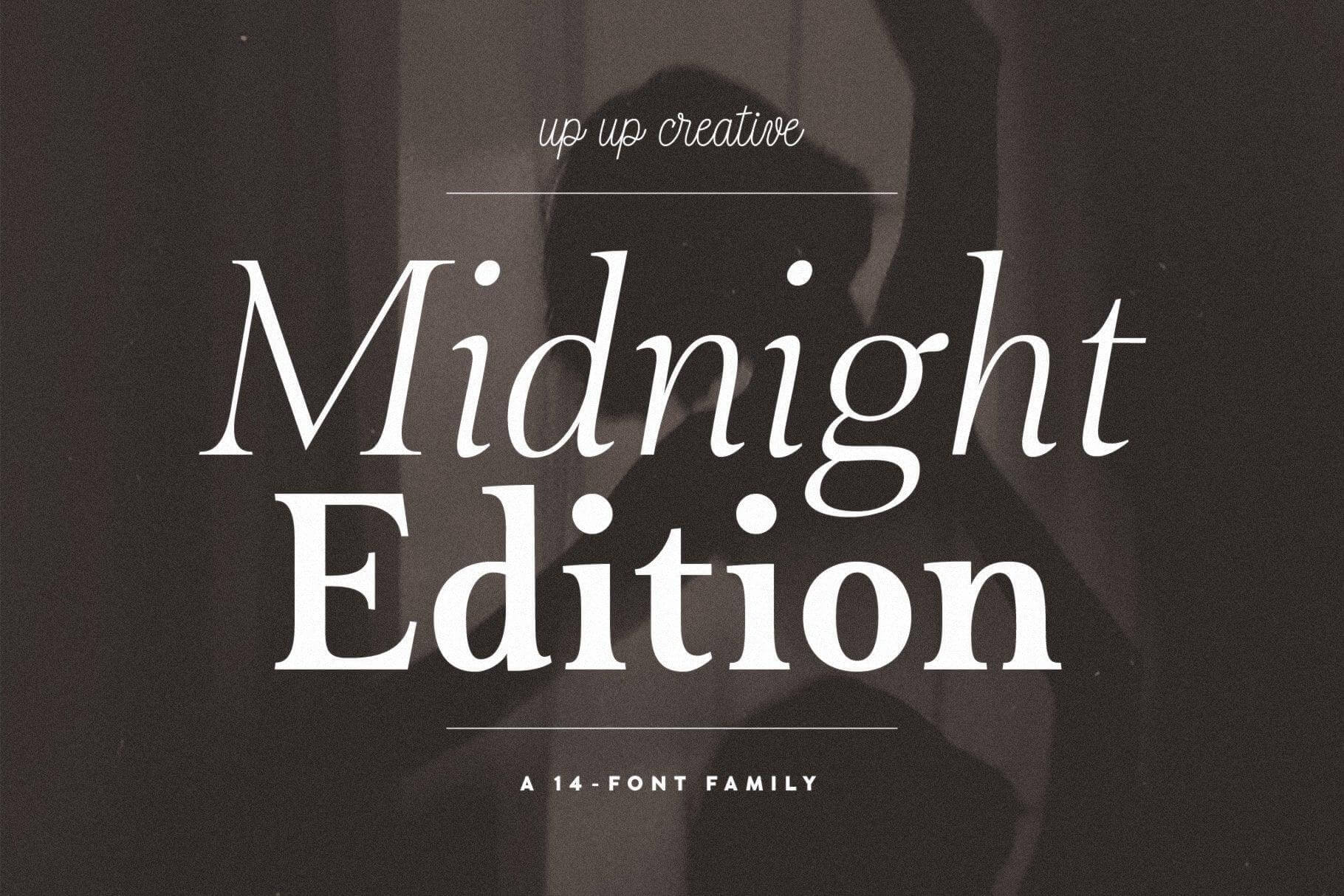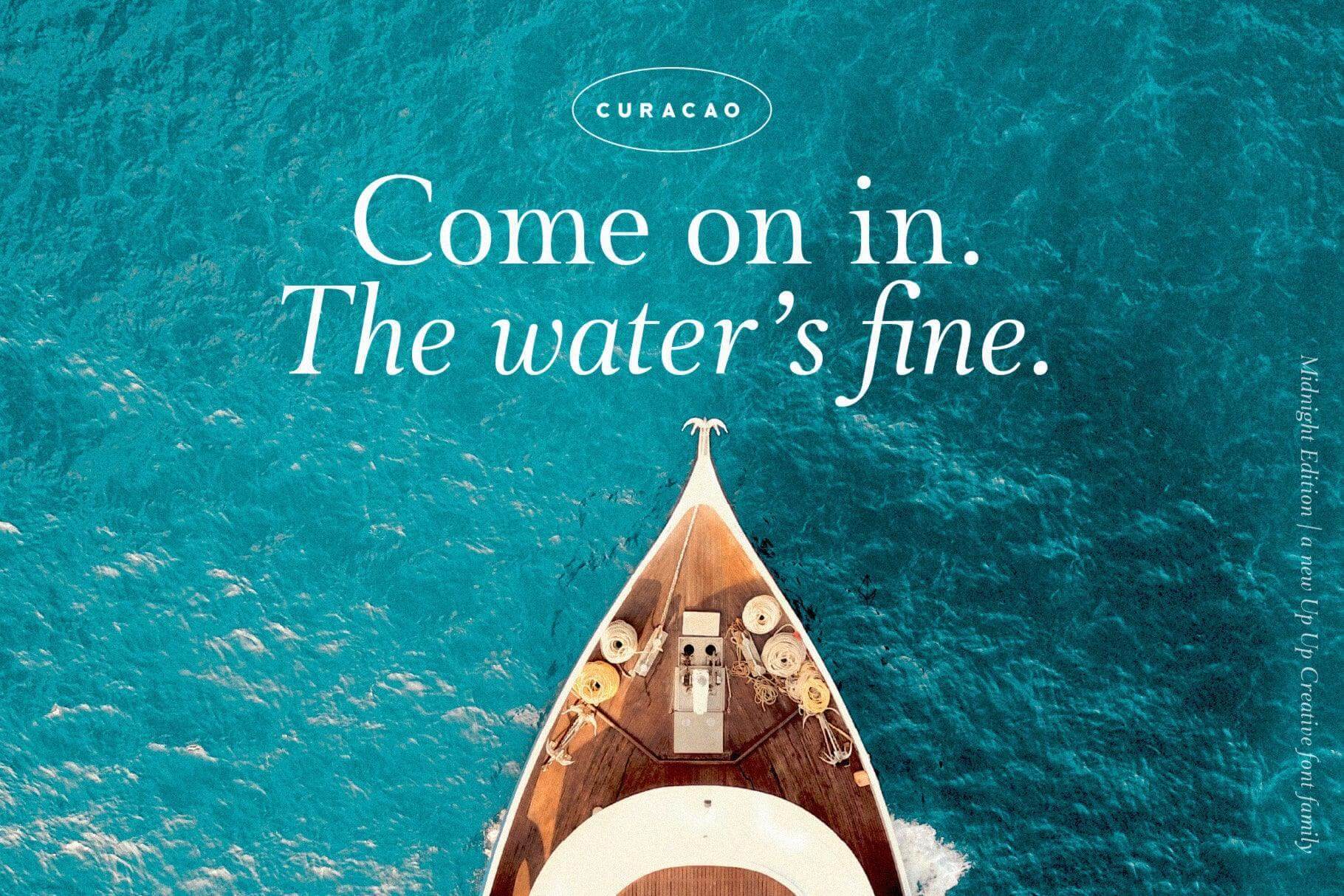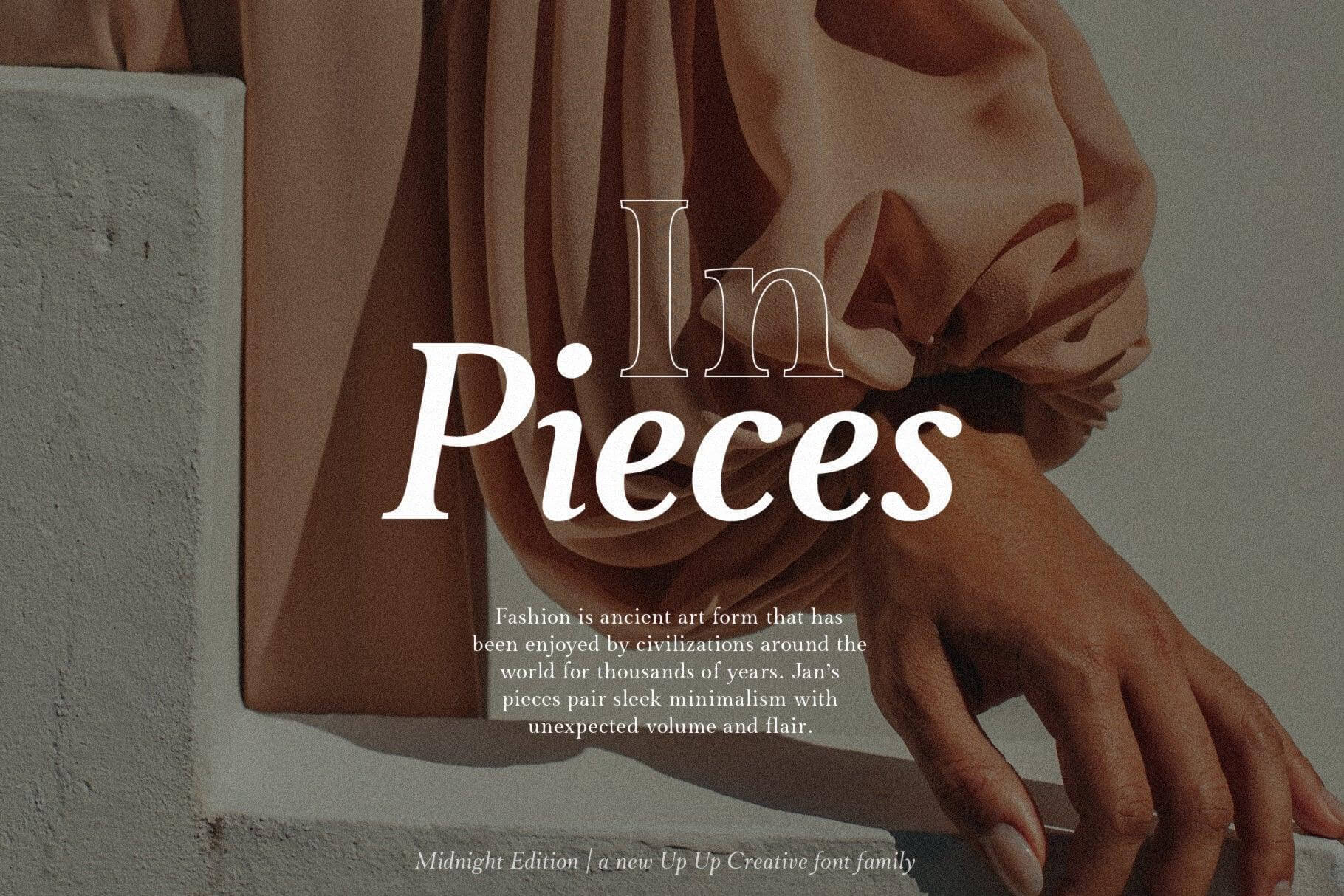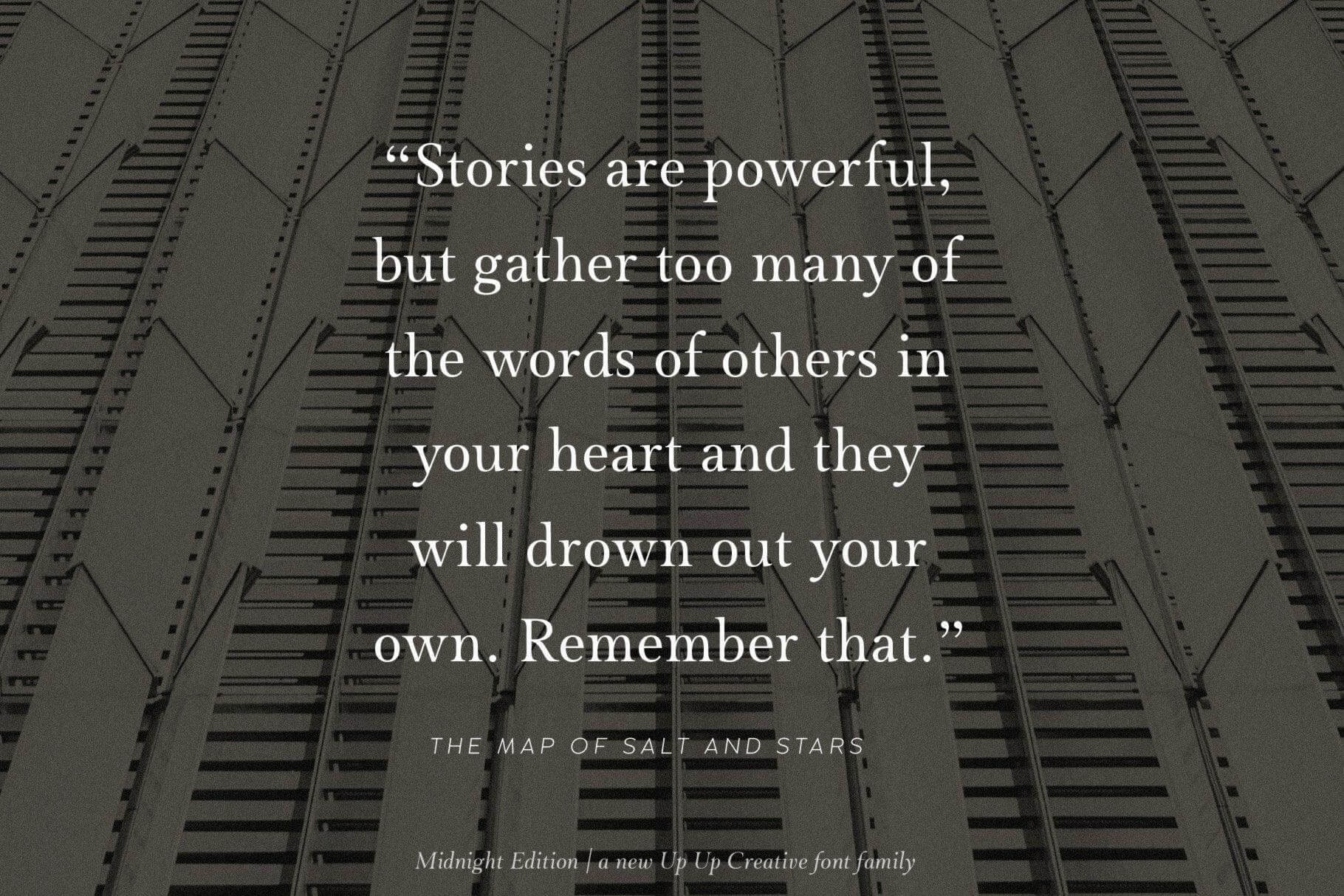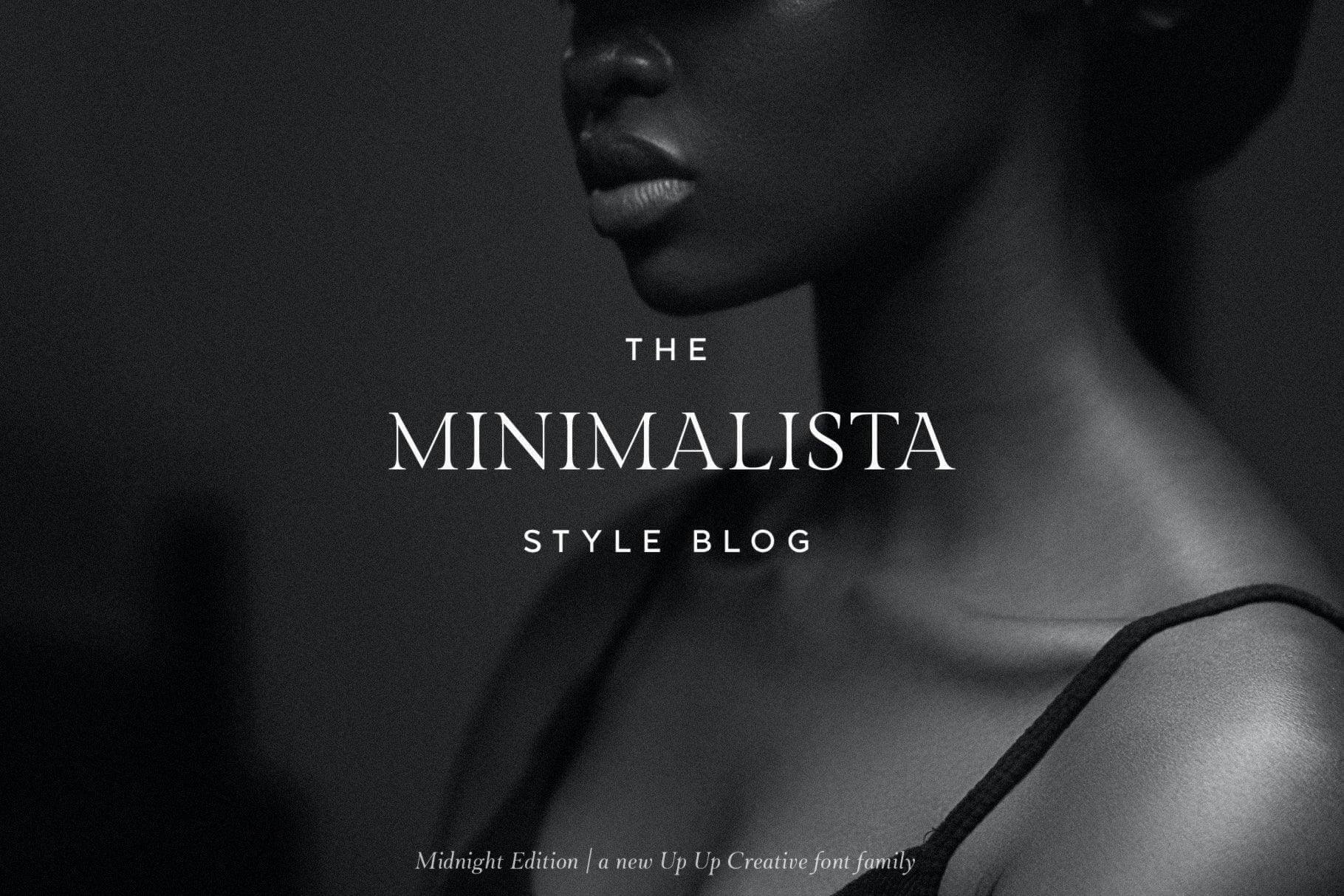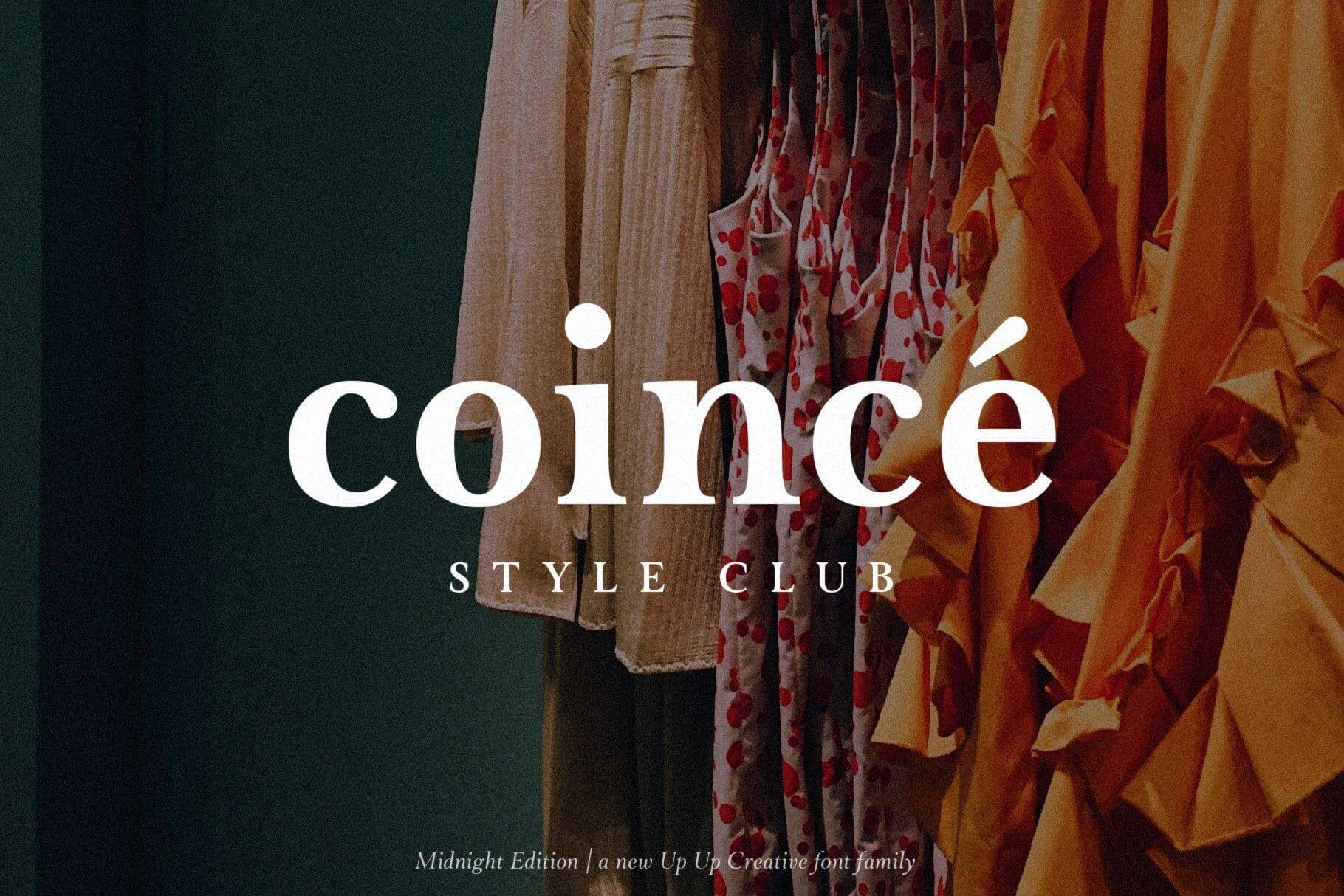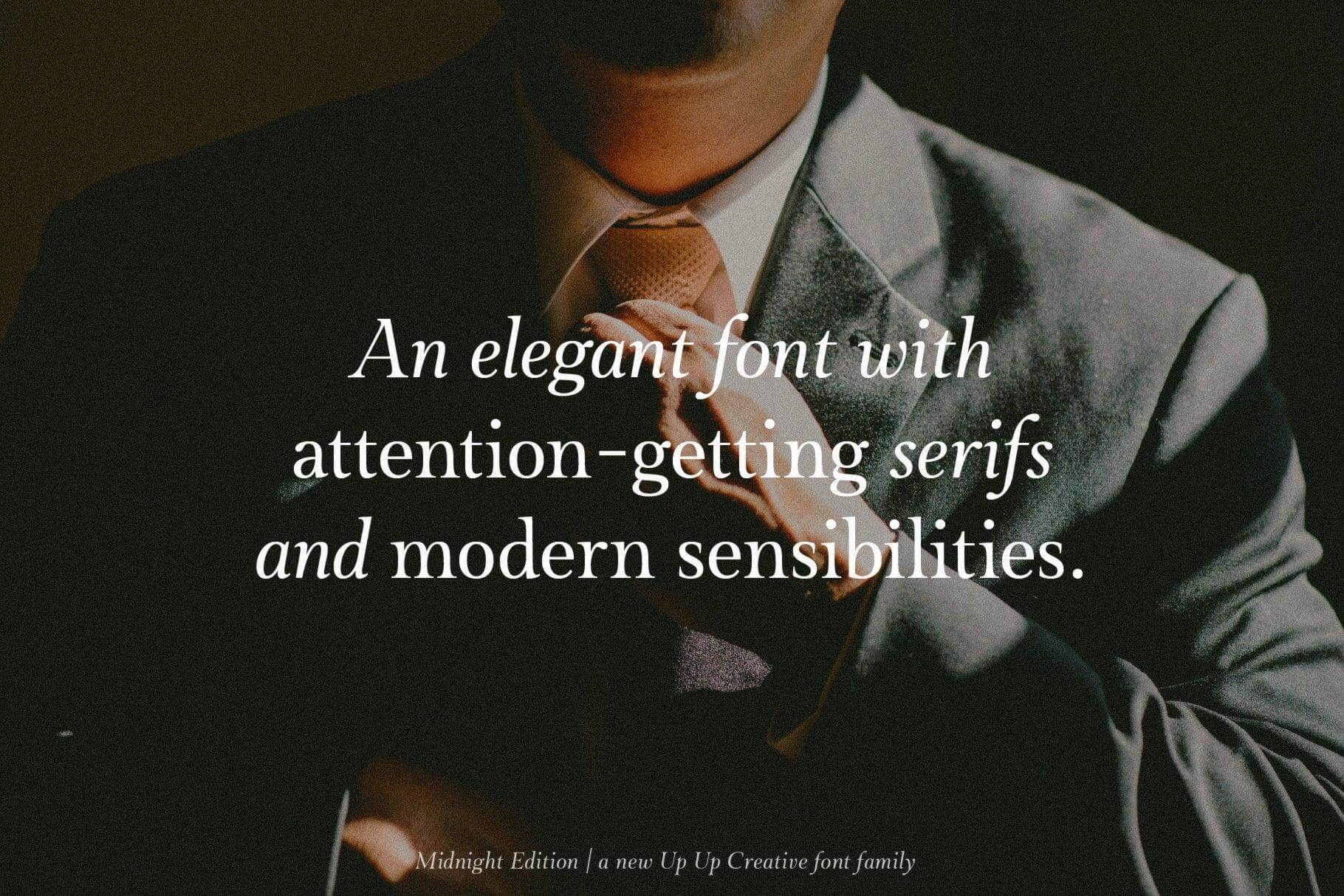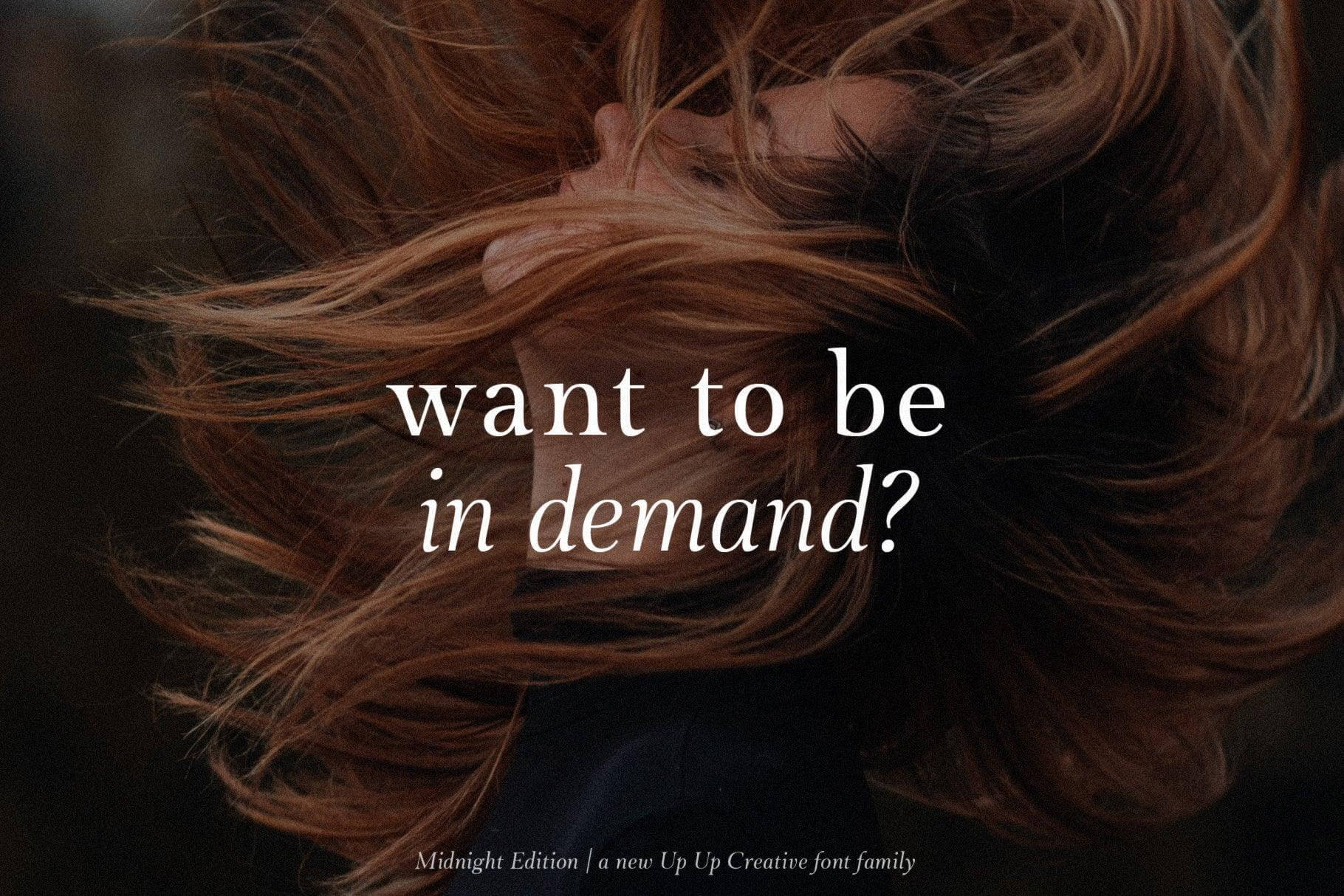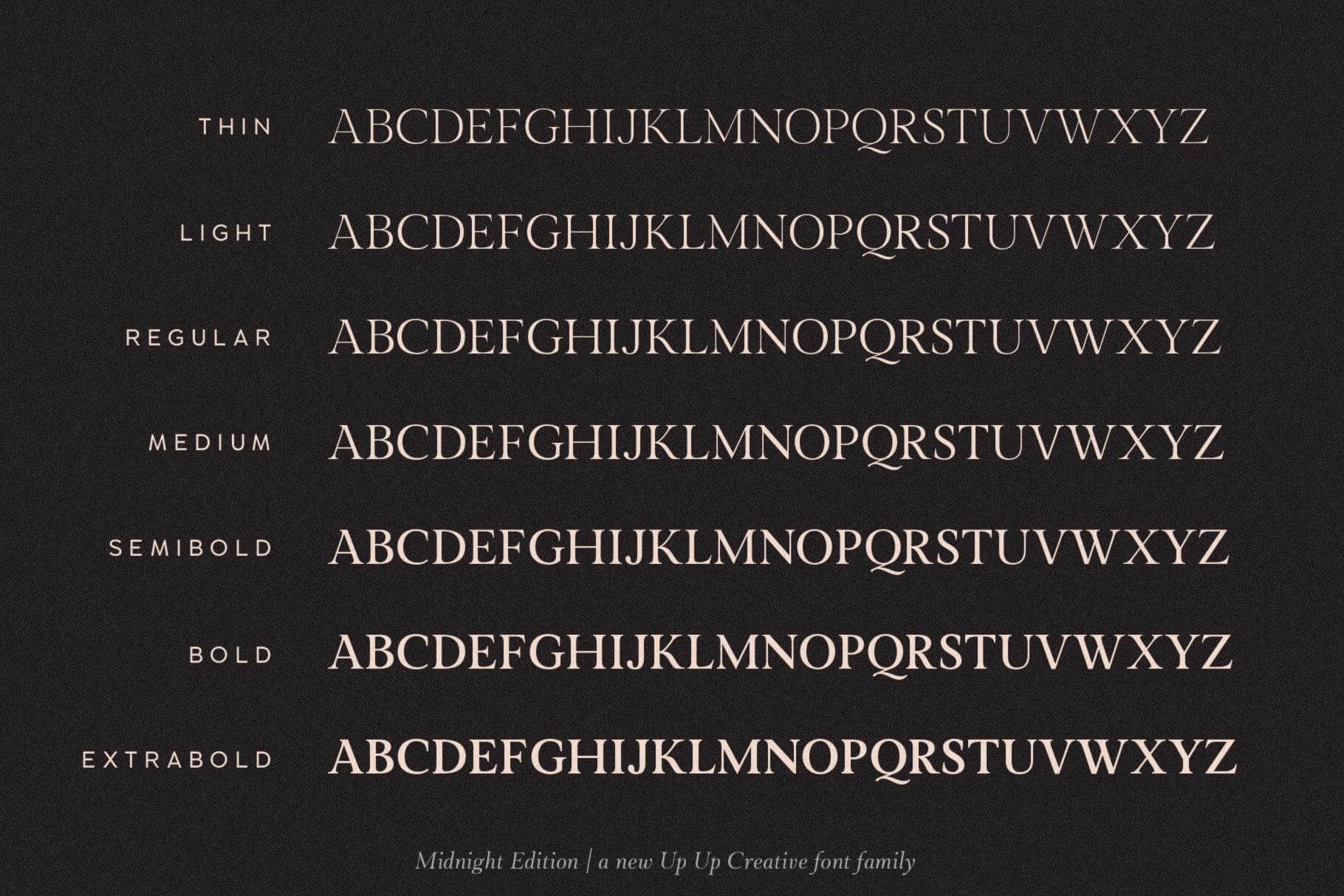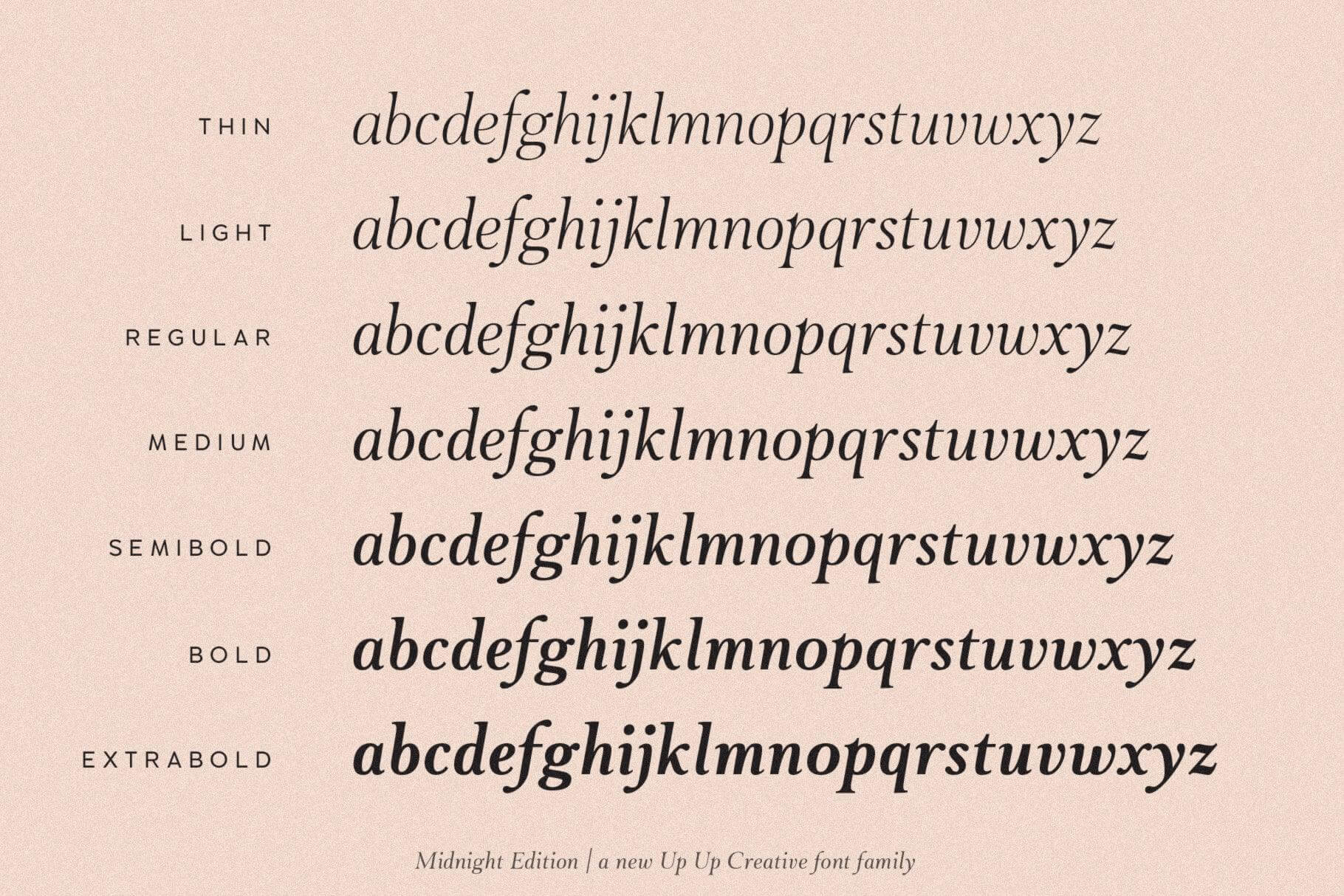
Midnight Edition Complete Serif Font Family
Midnight Edition is a stylish, elegant serif font family that gives traditional serif design elements a modern feel, making it ideal for body text, headlines, and calls to action. Its clean lines, generous curves, and crisp details make it suitable for a wide range of design projects.
OpenType Features
- character variants
- standard ligatures
- localized forms (multi-language and multi-currency support)
- fractions, ordinals, subscripts, and superscripts
Includes 10 ligatures
- Includes 418 glyphs
- 7 Weights, each in Regular and Italic